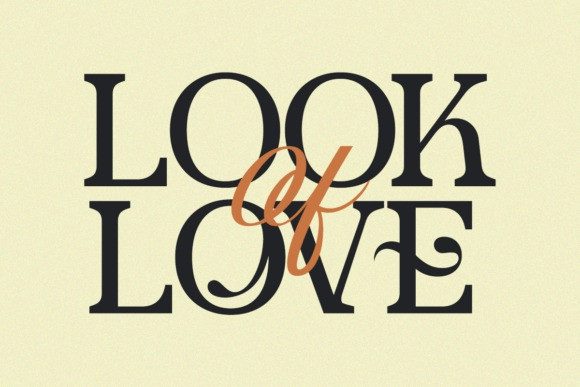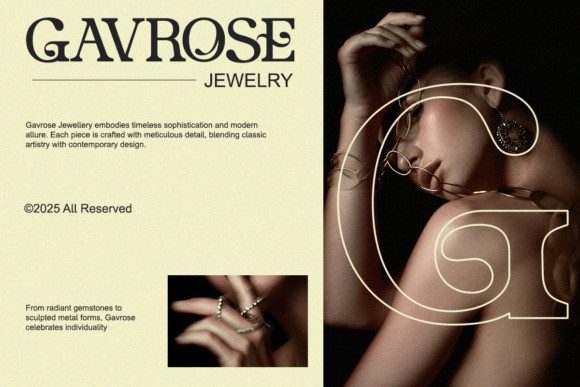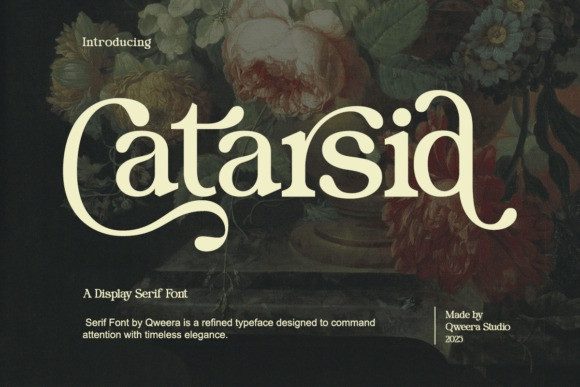
Catarsid Font
Catarsid Font is a retro display serif typeface inspired by vintage elegance and crafted for modern creators. With bold serifs and graceful flow, it’s ideal for logos, packaging, posters, and editorial design. It brings a touch of nostalgia and artistry to every project, making it a must-have for designers who value timeless aesthetics.